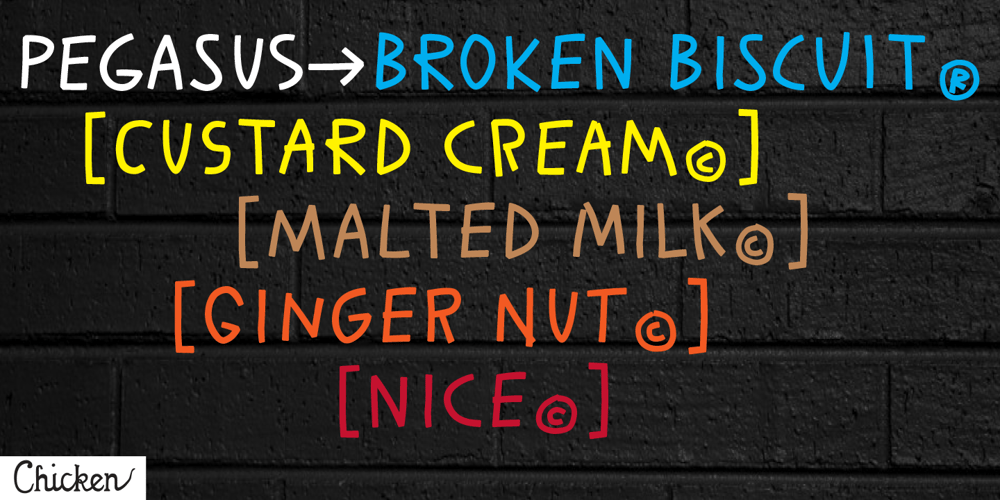
Pegasus Font Family was designed by Tim Barnes and published by chicken. Pegasus contains 4 styles and family package options. Pegasus scrapes the DNA of a great twentieth century painter who scattered text across his work like no other… not any kind of facsimile, but tough, playful, adaptable display type forged from the bones of a unique writing hand. Three weights – Skinny, Domestic and Peso – each offer five alternates for each letter, three for each numeral and multiple versions of many punctuation and other symbols. Letters are uppercase only with the lowercase providing one of the alternate forms of each letter… with OpenType Contextual Alternates switched on, you get automatic variation between the two… and you can manually throw in wilder variations from the remaining alternates. Some repeated punctuation – periods, question marks, etc. – are automatically varied too. OpenType Stylistic Set 1 switches to a rowdier selection from the alternates… Set 2 flips all the E’s to distinctive ‘skeleton’ alternates… Set 3 introduces automatic variation into numerals. Save some $$$ by purchasing the Whole Livery Line – all three weights at a nice discount… or, if you’re really hurting, Cheapskate offers just two alternates for each letter and a single set of numerals.